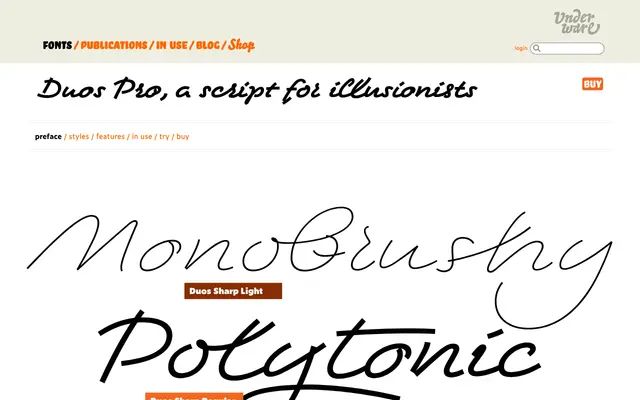
A paired typeface family from Underware combining a script style with a complementary roman counterpart.
Duos is structured around the concept of pairing two contrasting but harmonious styles, a script and a roman, designed to work together in typographic compositions. Underware, a foundry known for unconventional type concepts, built the family to allow fluid switching between the two styles within a single design system. The pairing approach makes it well suited to packaging, editorial and branding work that needs warmth alongside legibility.
Classified as script based on Underware's Duos family, which pairs a script style with a complementary roman. The name and structure imply a dual-style family built around a handwritten or brush script component.